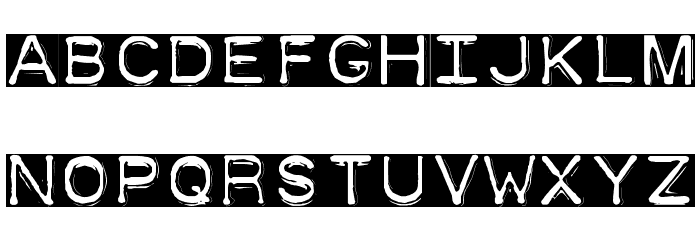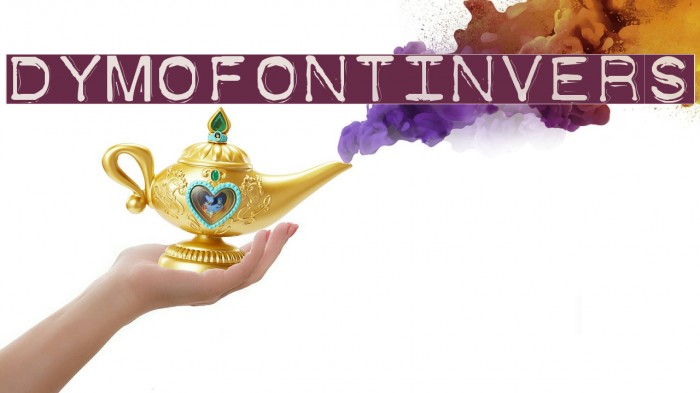
DymoFontInvers Font
This font features a bold, retro style reminiscent of classic label makers. The characters are uppercase with a slightly distressed texture, giving them a vintage, industrial feel. The letters are enclosed in a rectangular background, enhancing their visibility and adding a unique touch. The numbers and special characters follow the same design, maintaining consistency across the font set. The overall appearance is striking and attention-grabbing, making it ideal for projects that require a bold statement.
A bold, retro font with a distressed, industrial look.
- Proposed Projects: Ideal for vintage-themed designs, labels, packaging, posters, and branding projects that require a bold, standout typeface.
- Overall Style: Vintage